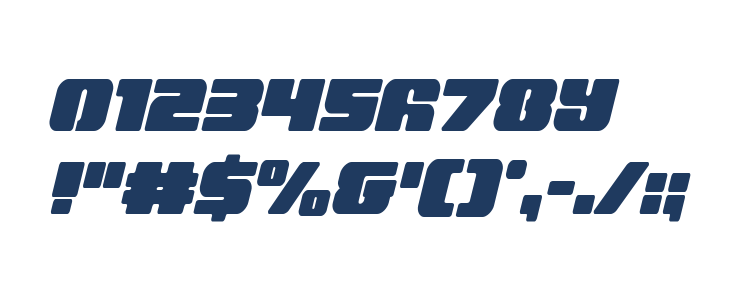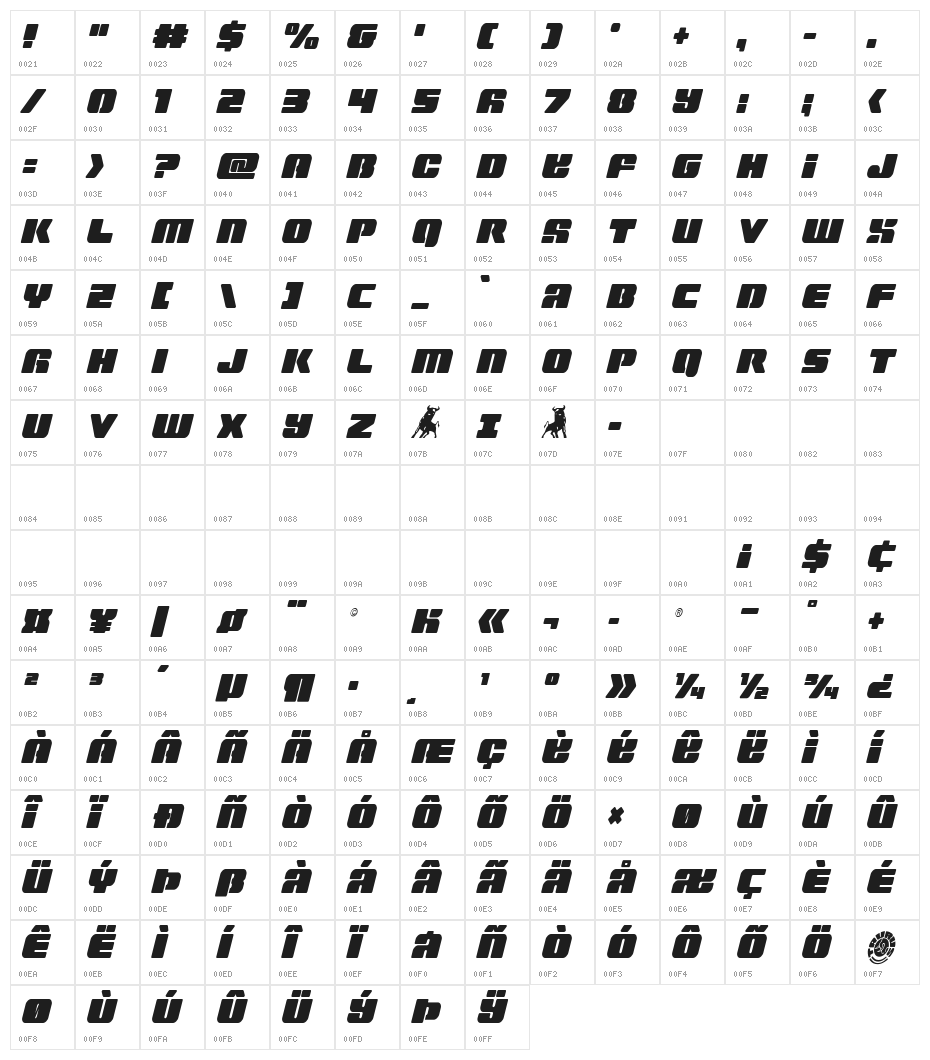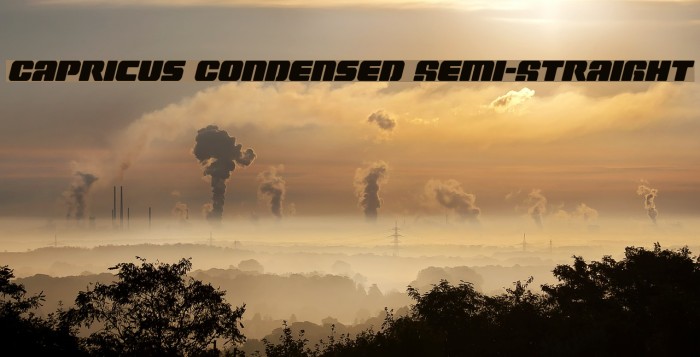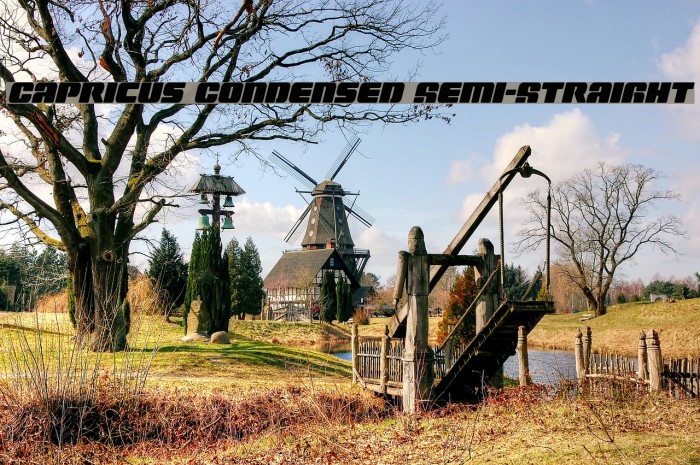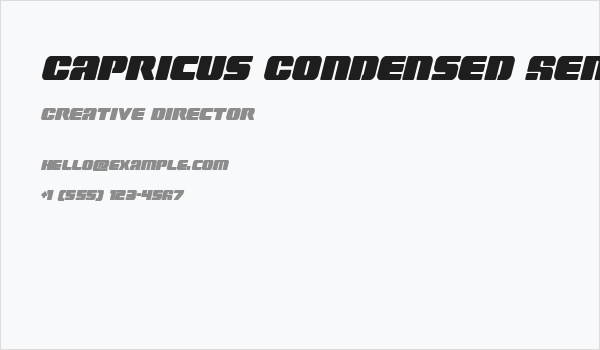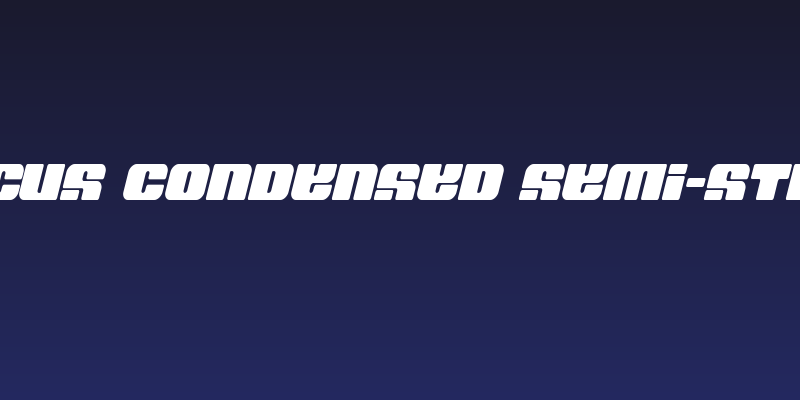
Capricus Condensed Semi-Straight Font
Capricus Condensed Semi-Straight Description
This font features a bold and condensed style with a modern and futuristic aesthetic. The characters are designed with a semi-straight structure, giving them a unique and dynamic appearance. The boldness of the font makes it stand out, while the condensed width allows for efficient use of space. The font maintains a consistent stroke thickness, contributing to its strong visual impact. It is well-suited for projects that require a bold statement, such as headlines or logos. The character spacing is tight, enhancing its compact and powerful look.
| Proposed Projects | Ideal for headlines, logos, posters, and branding materials that require a strong visual impact. |